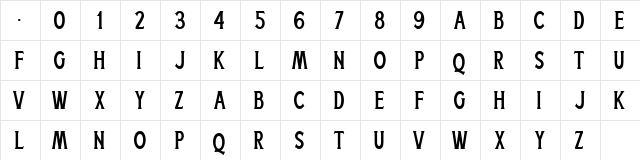
Boatman Regular (Free Personal Use) Regular
| Foundry | YdhraStudio |
| Designer | Yudha Rahmat Ageng |
Design Context for Boatman Regular (Free Personal Use) Typeface
Boatman Regular (Free Personal Use) is a composed and adaptable typeface that performs quietly and consistently across a wide range of design contexts.